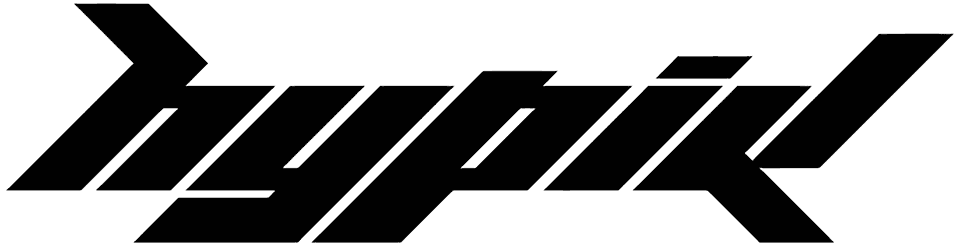
Hypik Font
If you’re looking to add a futuristic vibe to your digital projects, then look no further than Hypik, a sci-fi font that may be more difficult to read than other fonts, but its distinctive style will give it a more contemporary vibe.
Titles, logos, and banners, packaging, and the like would all benefit from this techno font. If you want to make a good impression on your clients, give it a try and don’t pay attention to its lacking numbers.
hypik™ is a free logotype font (includes A-Z only), inspired by Y2K aesthetics. Feel free to use it for both personal and commercial projects.